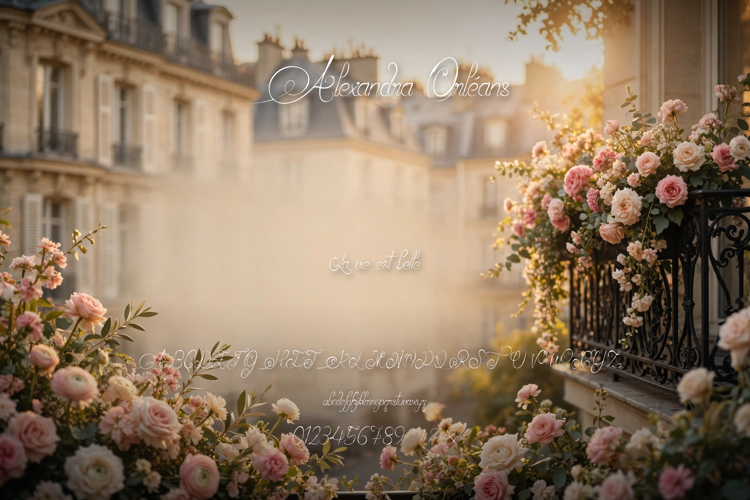
Alexandra Orléans Font
A hairline French-style calligraphy script with exquisite thin strokes and ornamental swash capitals — refined handwriting for luxury invitations, perfume labels, and editorial headlines. Includes upper and lowercase letters, numbers, and punctuation. Free for personal use; contact the designer for commercial use.